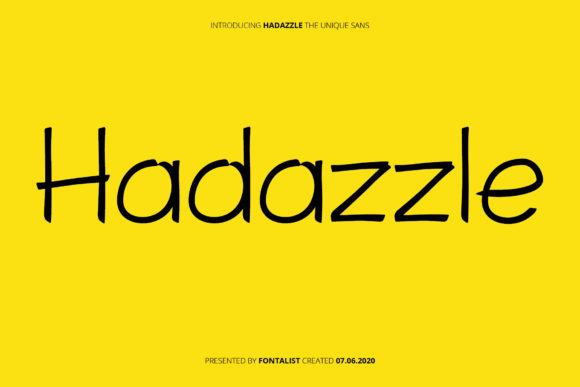
Introducing Hadazzle Font - The Epitome of Clarity and Precision in the Digital Realm!
In the vast expanse of the digital world, where information flows like a boundless river, clarity and precision reign supreme. Hadazzle Font emerges as a beacon of distinction, a sans serif masterpiece crafted to elevate your online presence. Immerse yourself in its meticulously designed characters, each stroke imbued with purpose, ensuring effortless readability even at the smallest of scales.
With Hadazzle Font, intricate details come to life, captivating your audience with its crispness and elegance. Its minimalist design harmonizes seamlessly with diverse visual landscapes, empowering your creative vision to soar. Whether you're crafting captivating web content, designing eye-catching logos, or crafting engaging presentations, Hadazzle Font emerges as the perfect companion.
Feel the thrill as your words dance across the screen, imbued with the clarity and precision that only Hadazzle Font can provide. Watch as your ideas take shape, effortlessly communicating your message to a captivated audience. Hadazzle Font transcends the boundaries of ordinary typography, becoming an integral part of your digital storytelling arsenal.
Embrace the power of Hadazzle Font today and witness the transformation of your online presence. As you navigate the digital realm, your words will carry the weight of authority and impact, leaving an unforgettable impression on all who encounter them. Unleash the full potential of your creativity and let Hadazzle Font be your guiding light in the ever-evolving world of digital communication.